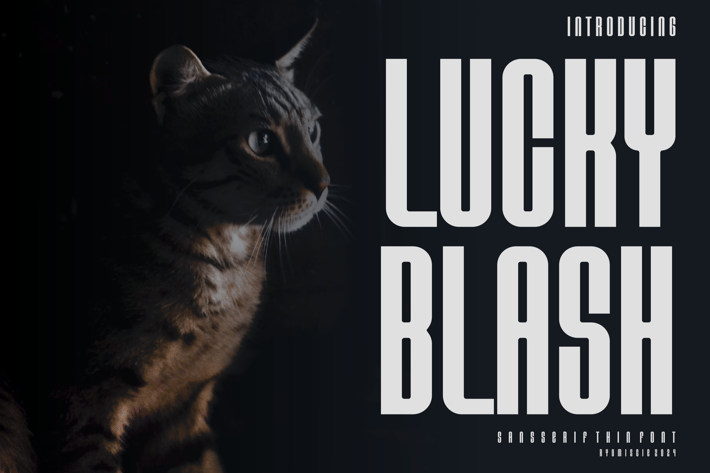
Lucky Blash - Modern Sans Font
ryomiscie
Introducing our new product Lucky Blash Font - Modern Font
Lucky Blash Font- Modern Font is a bold and authentic display font. The font is suitable for any branding project like logo,
t-shirt printing, esport, and many more. outstanding in a wide range of contexts.